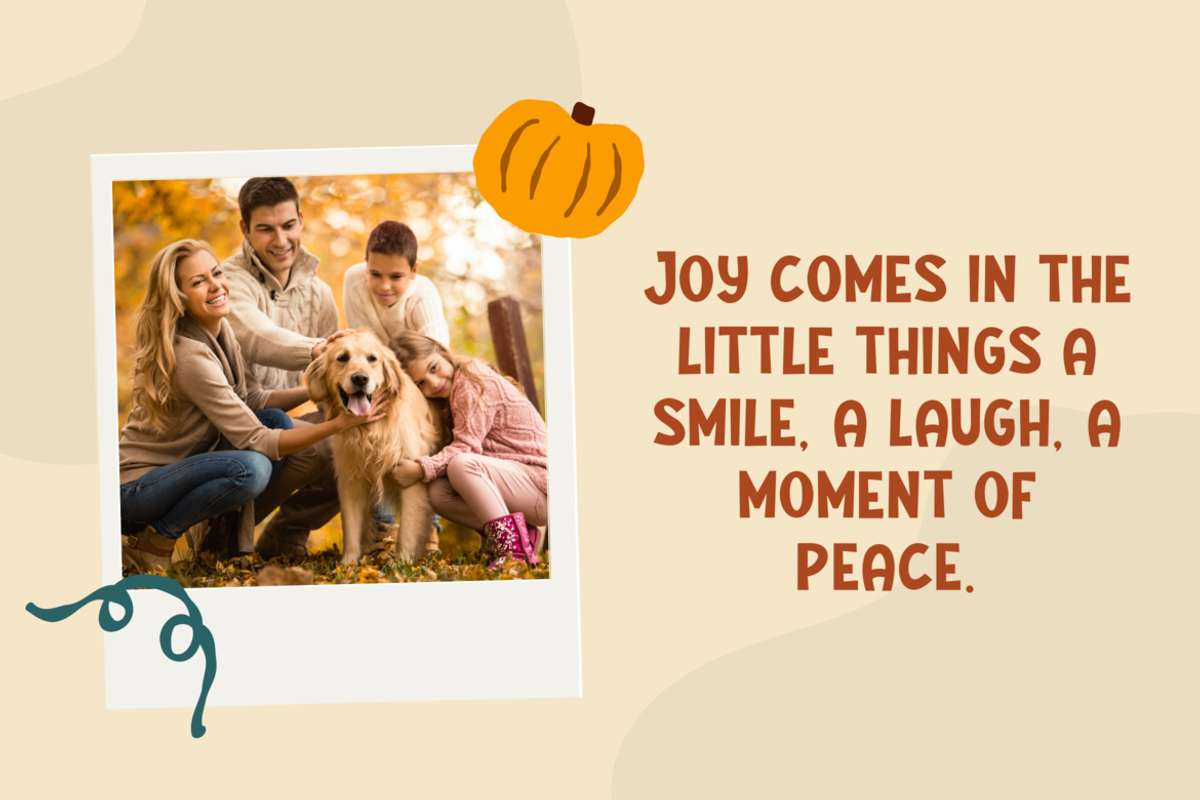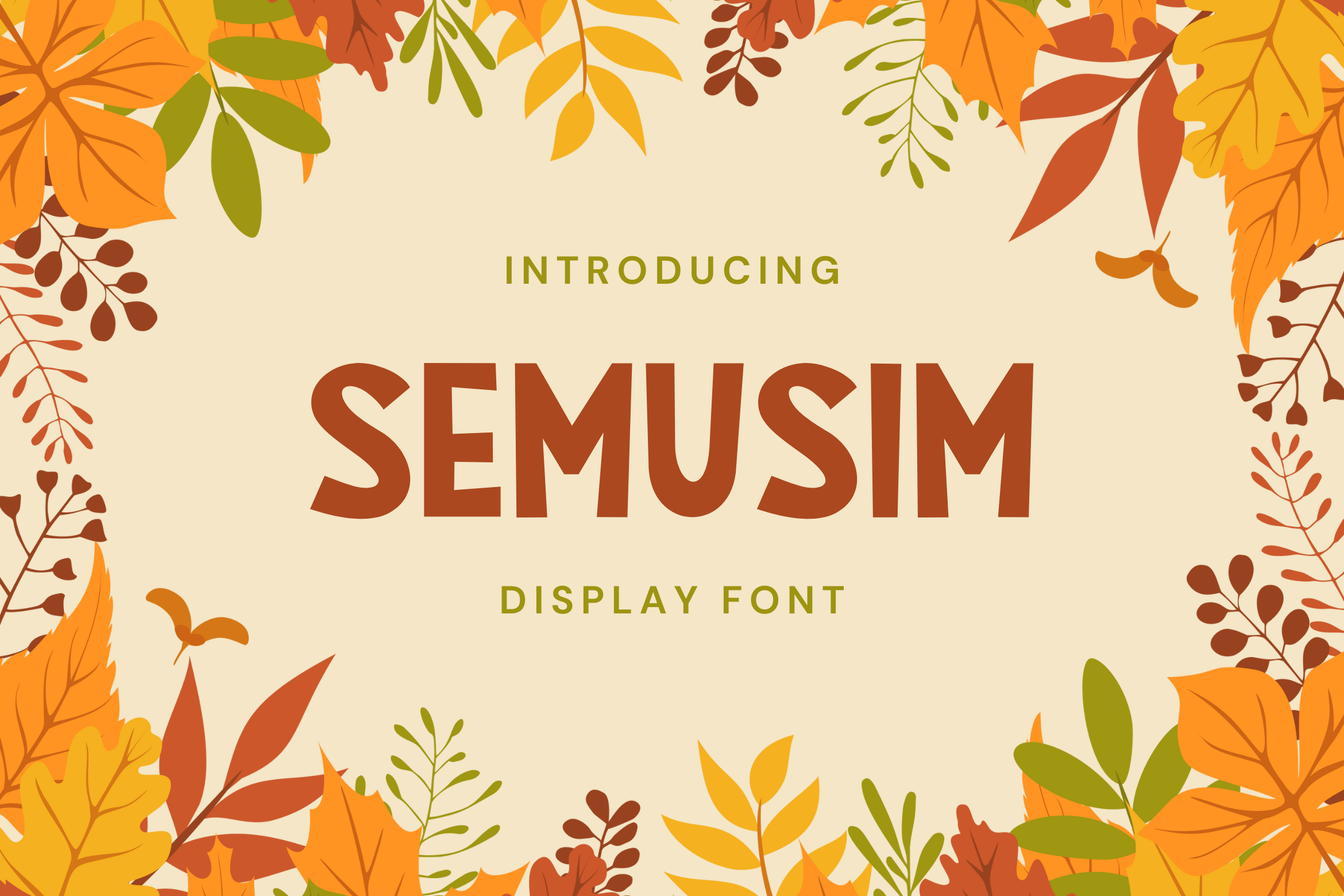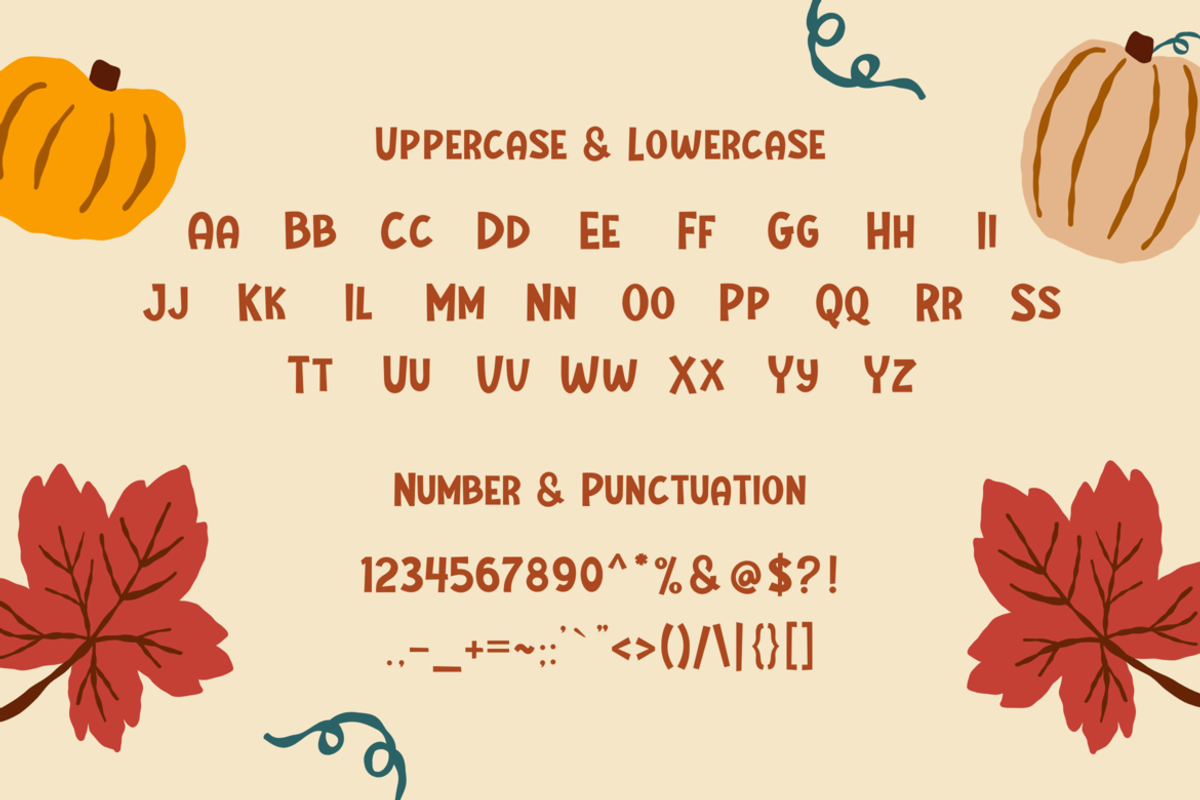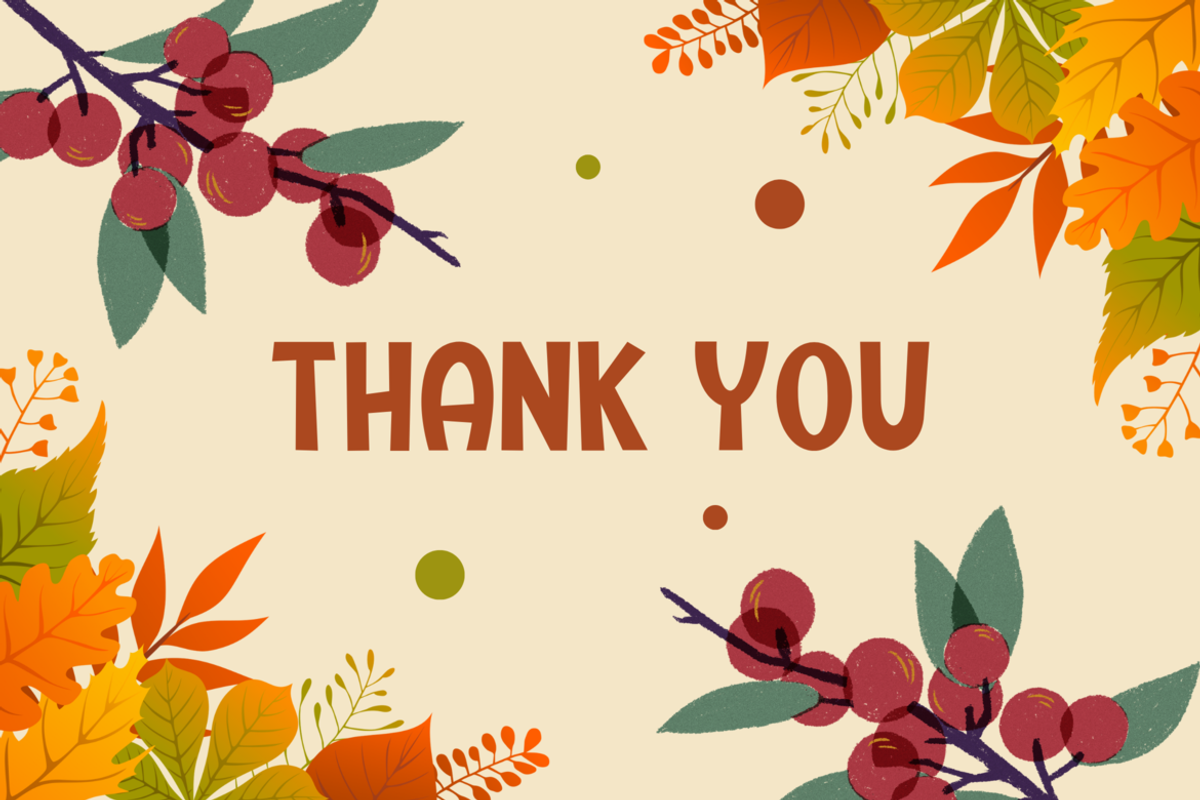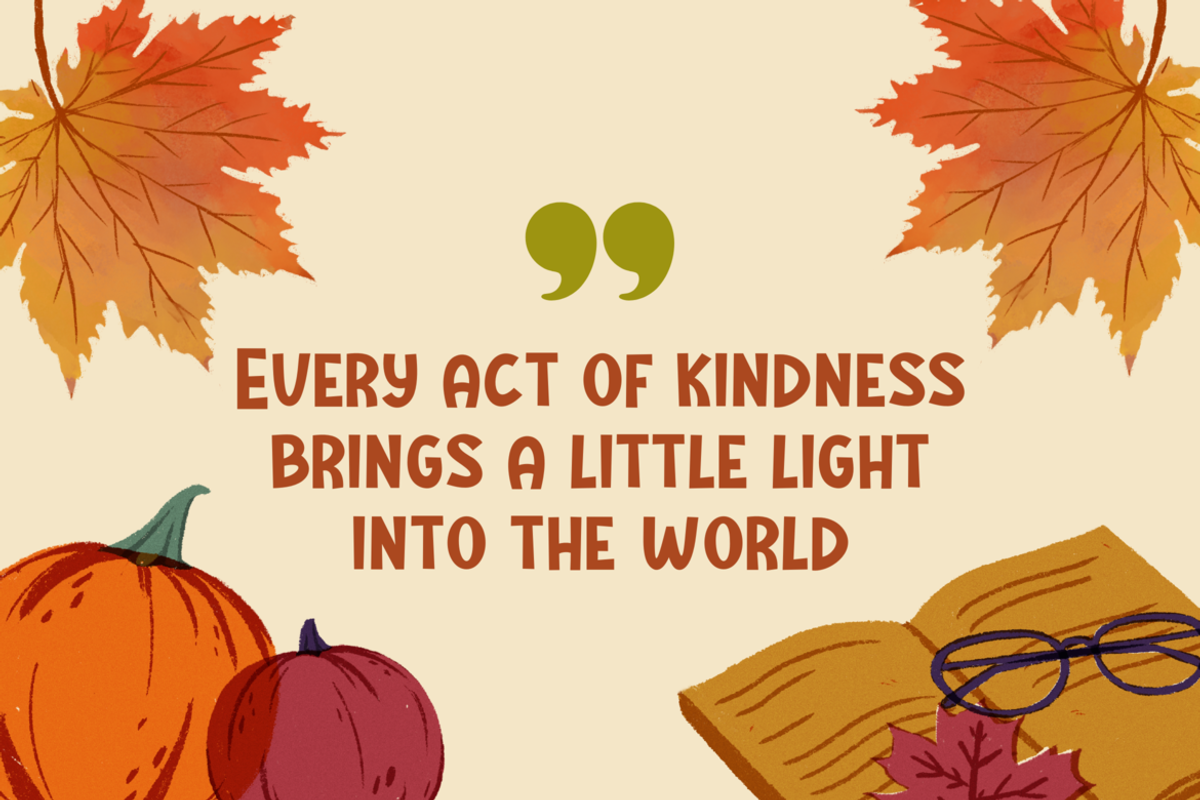
Semusim | Display Font
Presenting Semusim – a marvel of modern font design that is as pleasing to the eye as it is easy to read. Meticulously crafted to embody contemporary aesthetics, this font leads the way in bridging the gap between style and functionality. Semusim has been orchestrated with a cutting-edge design approach that puts both its visual charm and its superb readability at the forefront.